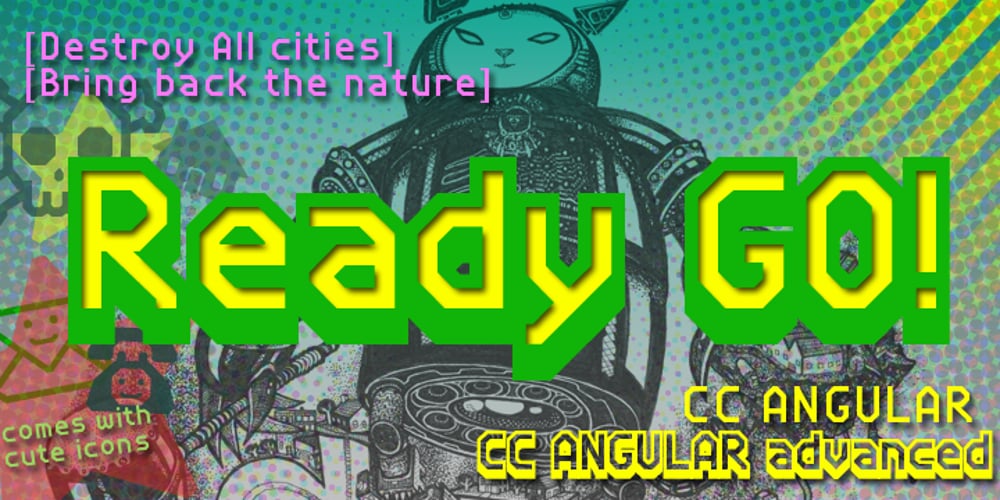
CC Angular Font Family was designed by Luke William Turvey and published by Okaycat. CC Angular contains 2 styles and family package options. Angular is all angular. This font has no curves! Dingbat symbols & icons replace a handful of the generally unused alternate characters, to make this font extra fun & useful. Angular is extended, containing West European diacritics & ligatures, making it suitable for multilingual environments & publications.